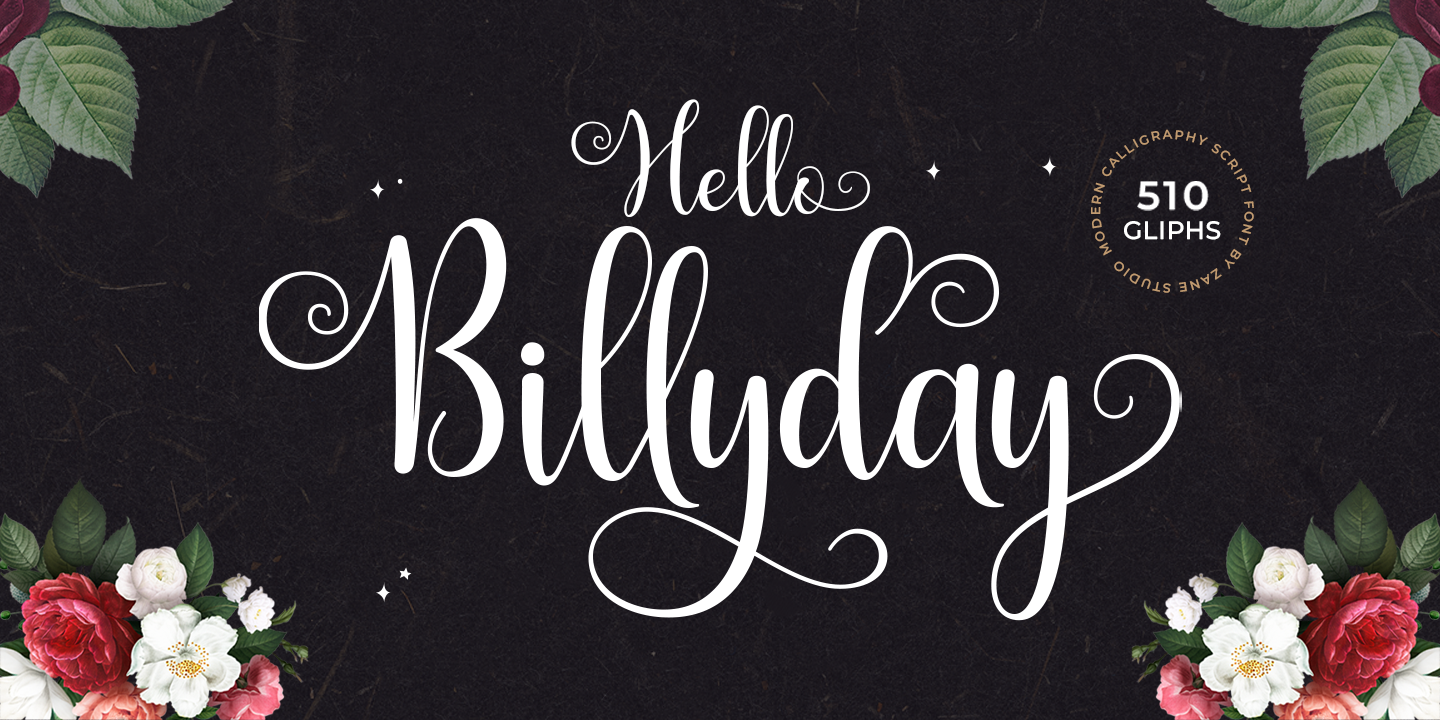
Hello Billyday Font is a casual, hand-drawn script typeface that adds a personal and friendly touch to your designs. It’s perfect for greeting cards, invitations, branding for creative businesses, social media posts, and lifestyle blogs.
What makes Hello Billyday Font Free Download so exciting is its warm and approachable style that mimics natural handwriting with smooth curves and playful letterforms. It creates an intimate connection with the audience, making your messages feel genuine.
The Hello Billyday Font family includes styles such as Regular and Bold, offering flexibility for emphasis and layering in your projects. Each style retains the font’s charming, handcrafted feel.
Whether you’re designing for personal projects, small businesses, or creative campaigns, Hello Billyday Font Free Download brings warmth and authenticity that helps your work stand out.